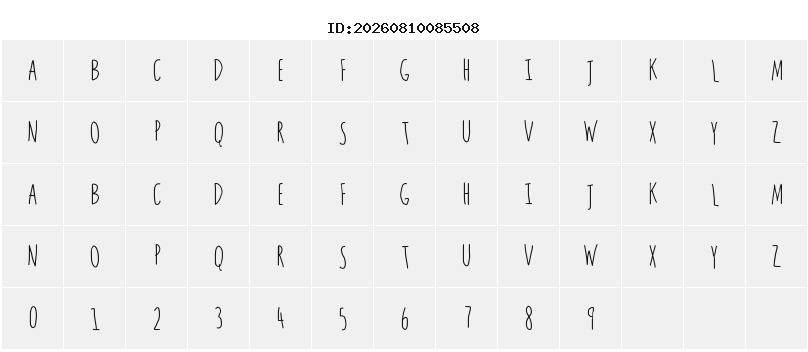
• Font Name: PENCIL SHARP
• Full Font Name: PENCIL SHARP
About PENCIL SHARP.ttf
PENCIL SHARP.ttf is a modern, elegant sans-serif font designed for ultimate readability and visual harmony. Perfect for branding, headlines, web design, and print materials.